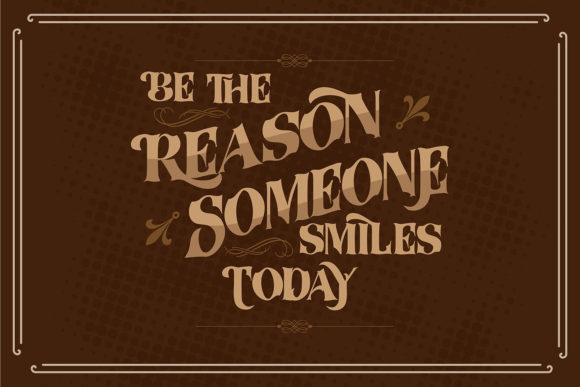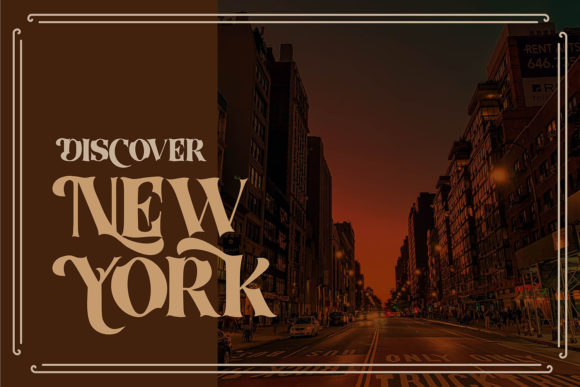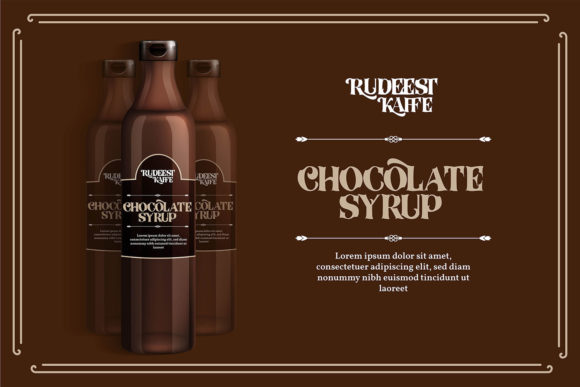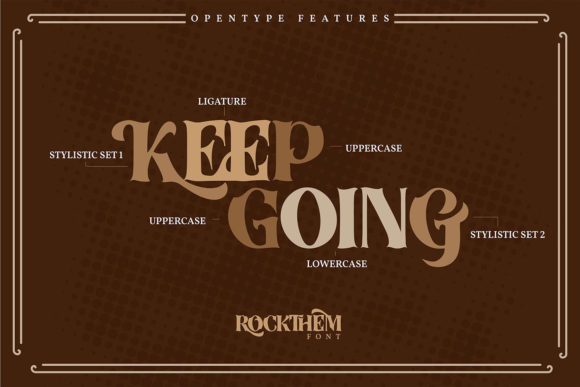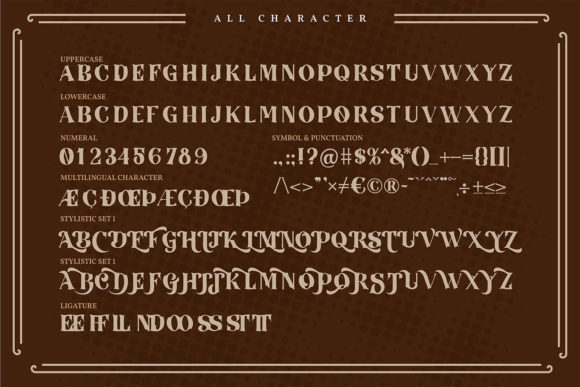
Introduction to Rockthem Font
Rockthem is a bold, thick lettered classic display font.
Use this vintage styled font for your designs and explore its endless possibilities .
Key Features of Rockthem Font